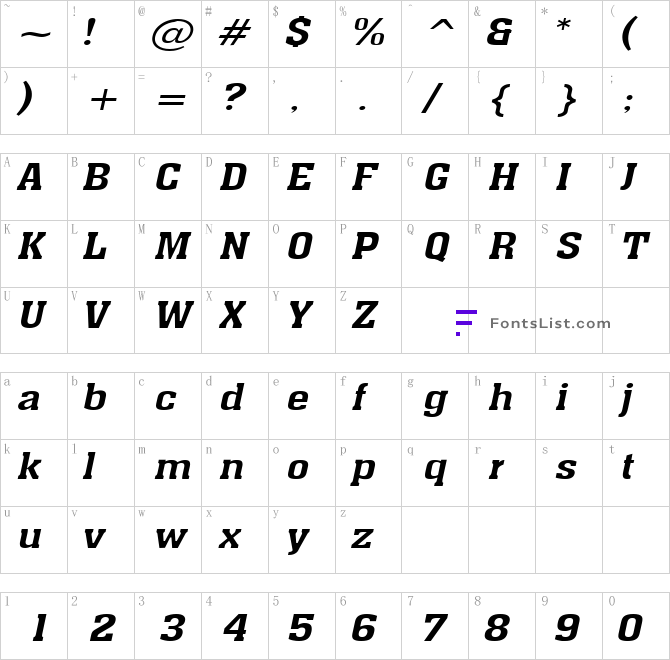
- Font Name:Ache-Extended
- Subfamily:Alts:Ache-Extended Italic
- Full Name:Ache-Extended Italic
Ache-Extended-Italic1-.ttf is a very beautiful artistic font, Ache-Extended-Italic1-.ttf is widely used in the design and printing of various books and pictures,Ache-Extended-Italic1-.ttf has a strong visual impact,Ache-Extended-Italic1-.ttf is a commonly used font in newspapers, magazines and books, and is used in posters, e-commerce Poster design, store design, logo design, font design and other fields.Ache-Extended-Italic1-.